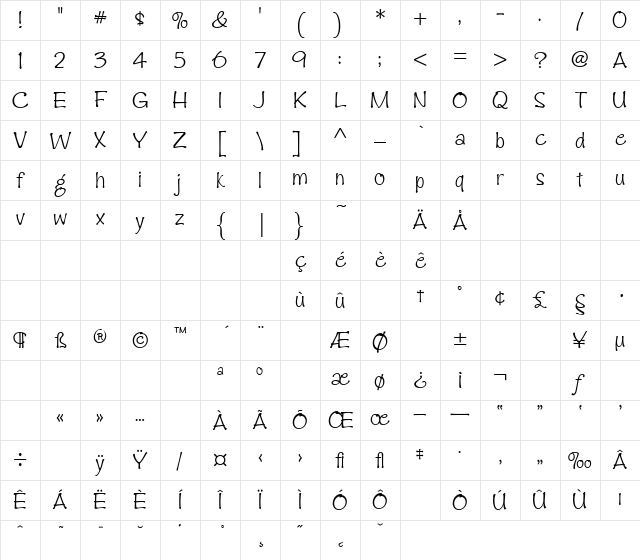
Zipty Do Regular
Design Context for Zipty Do
Zipty Do is a composed and adaptable typeface that performs quietly and consistently across a wide range of design contexts.